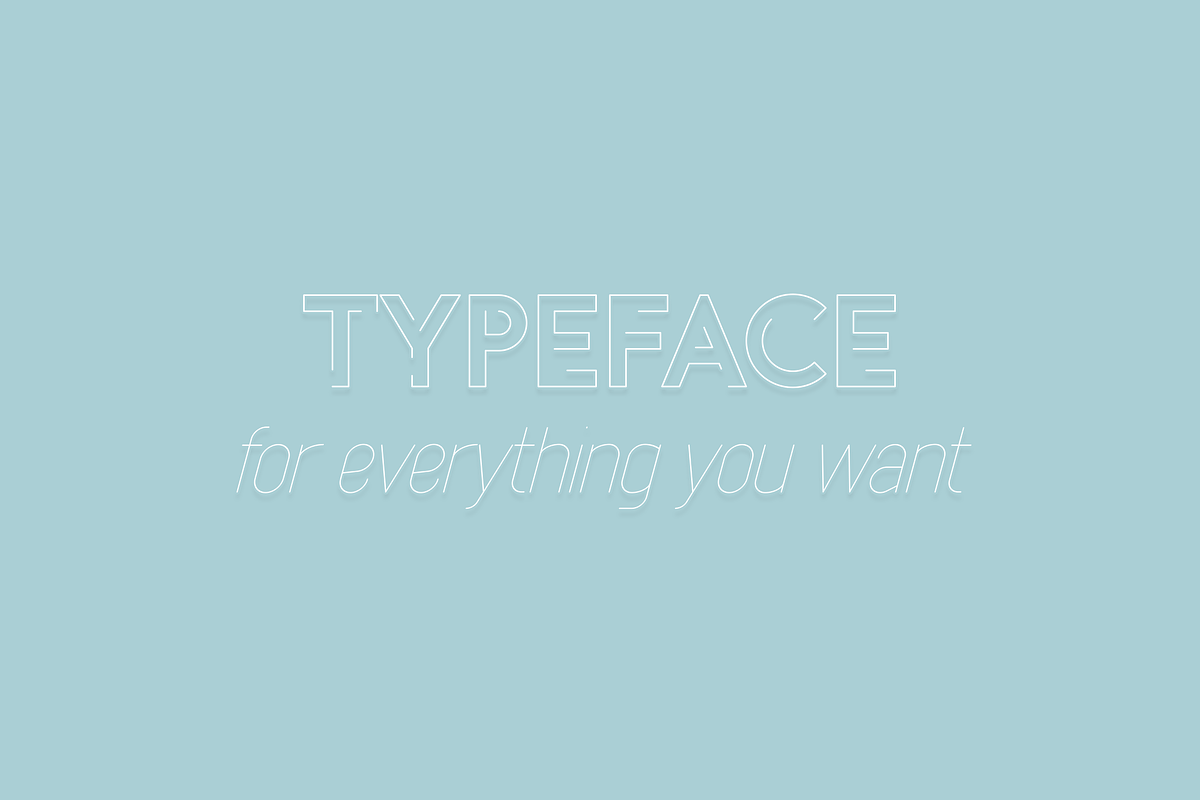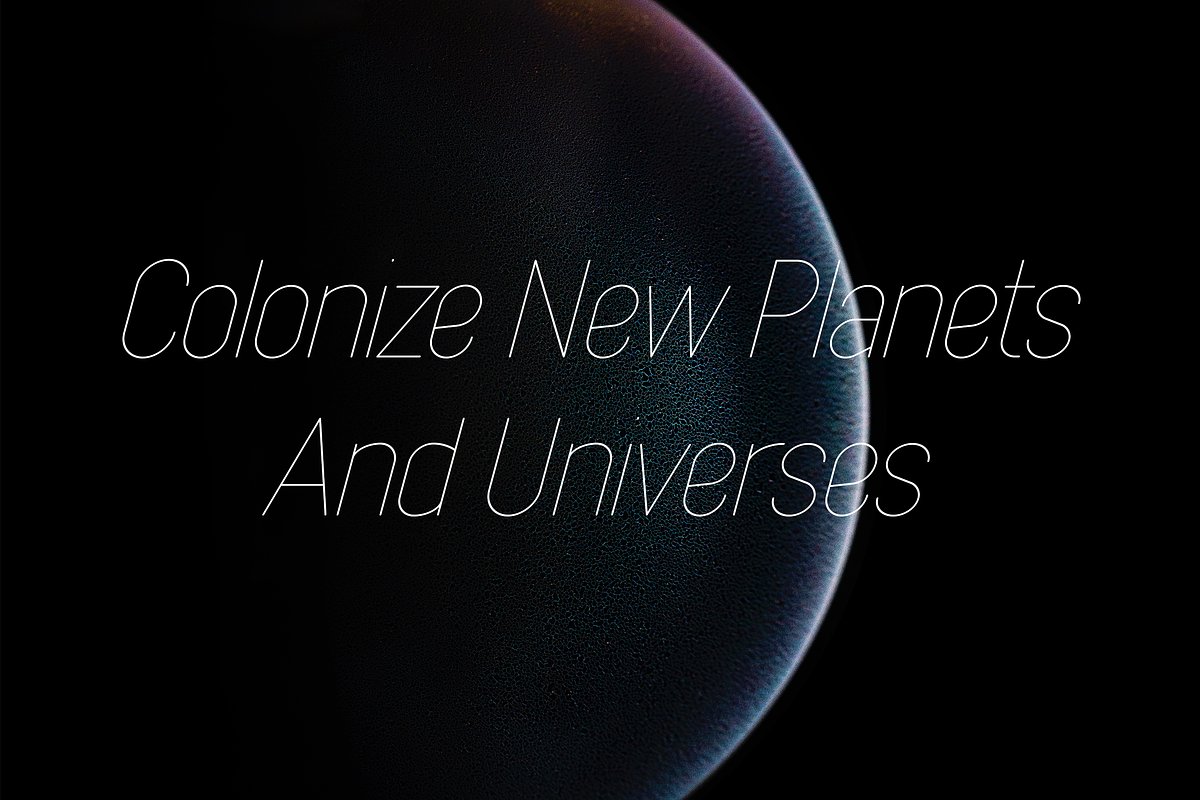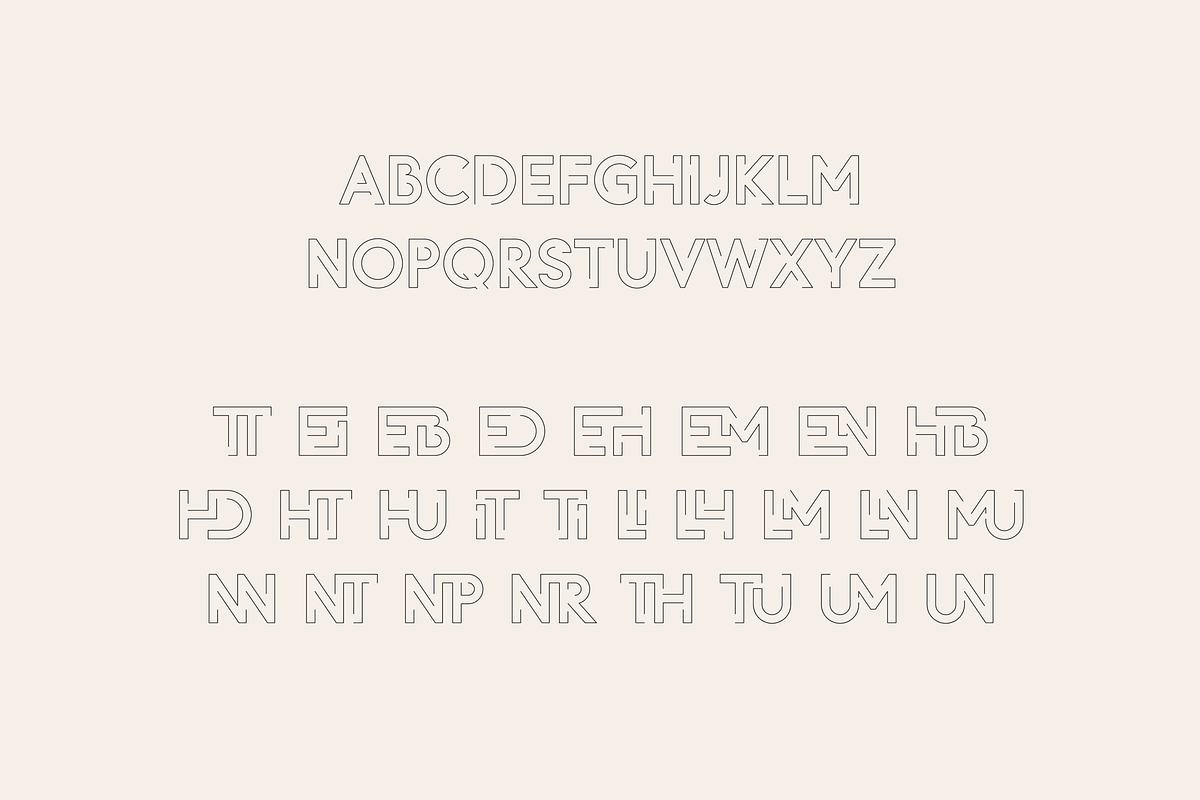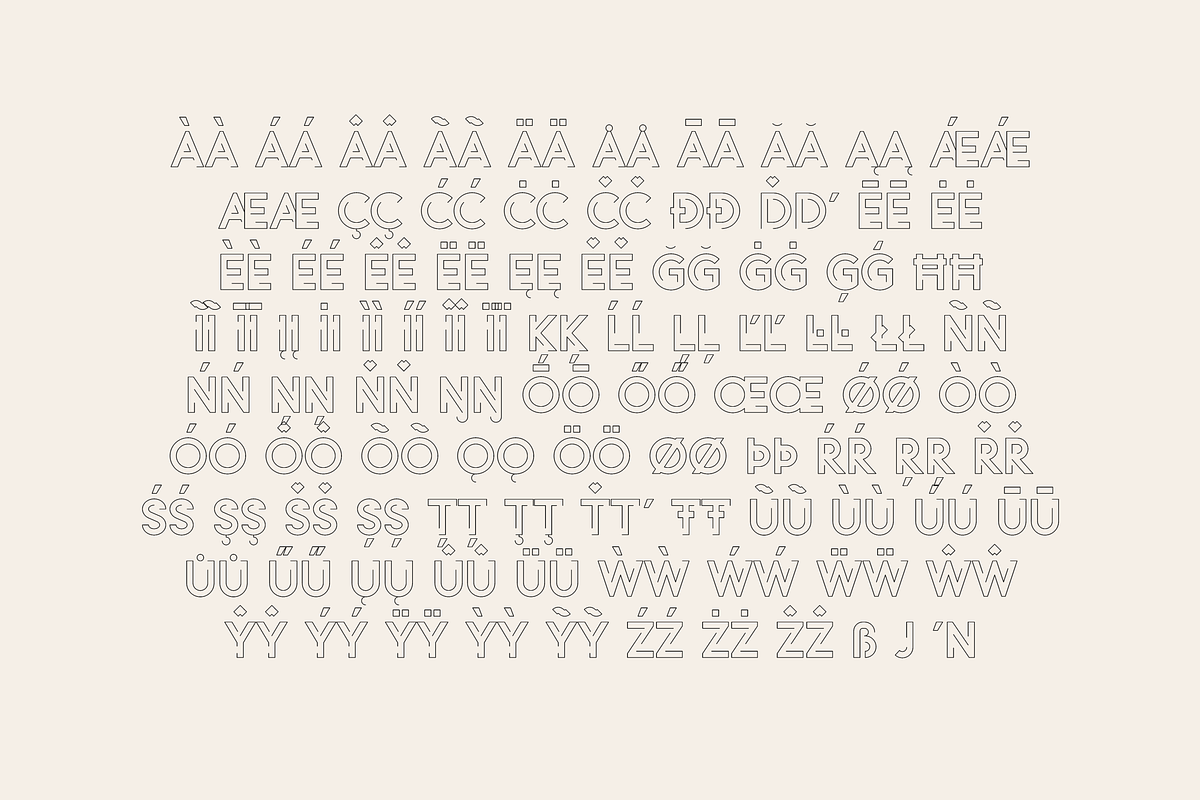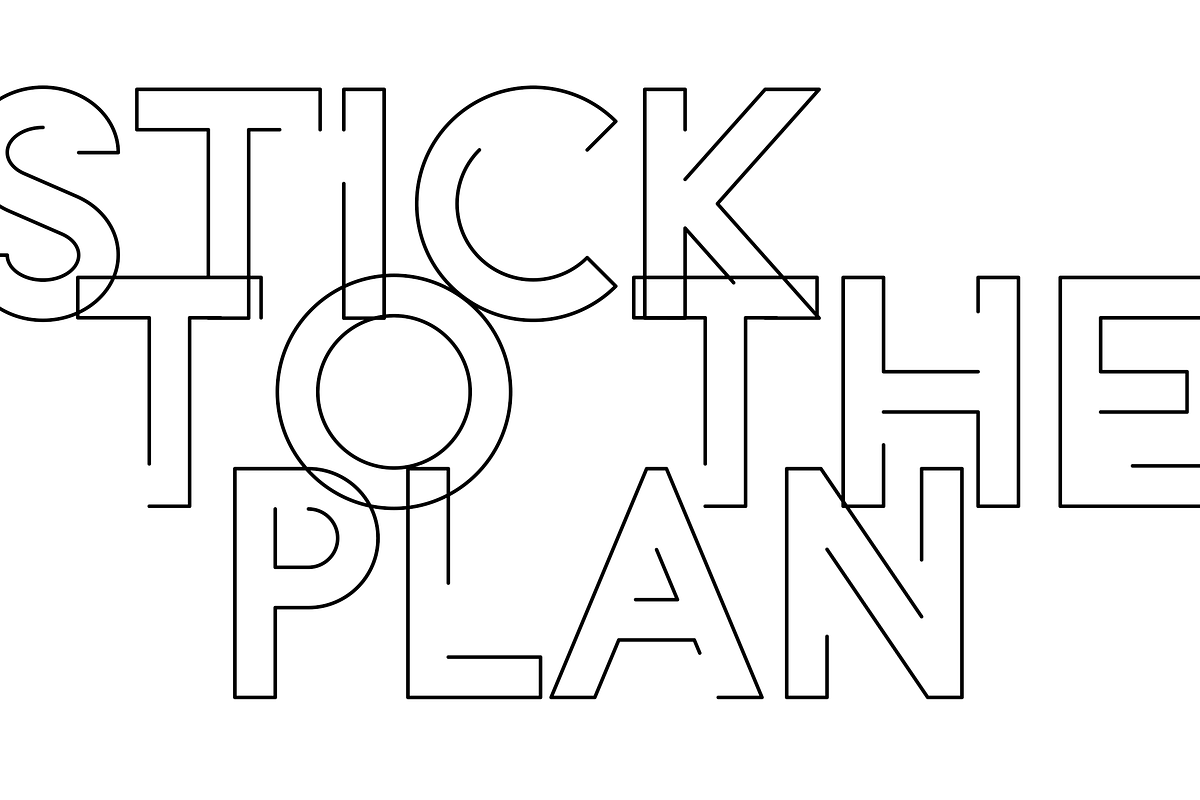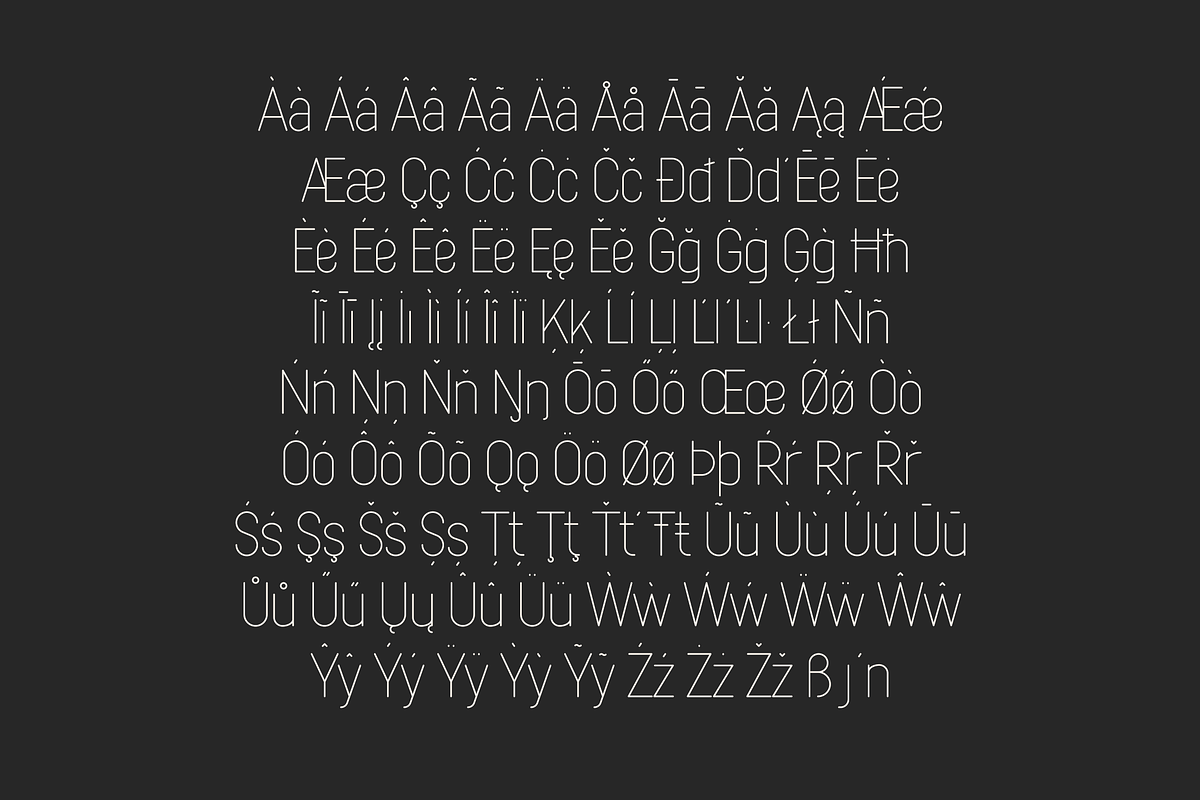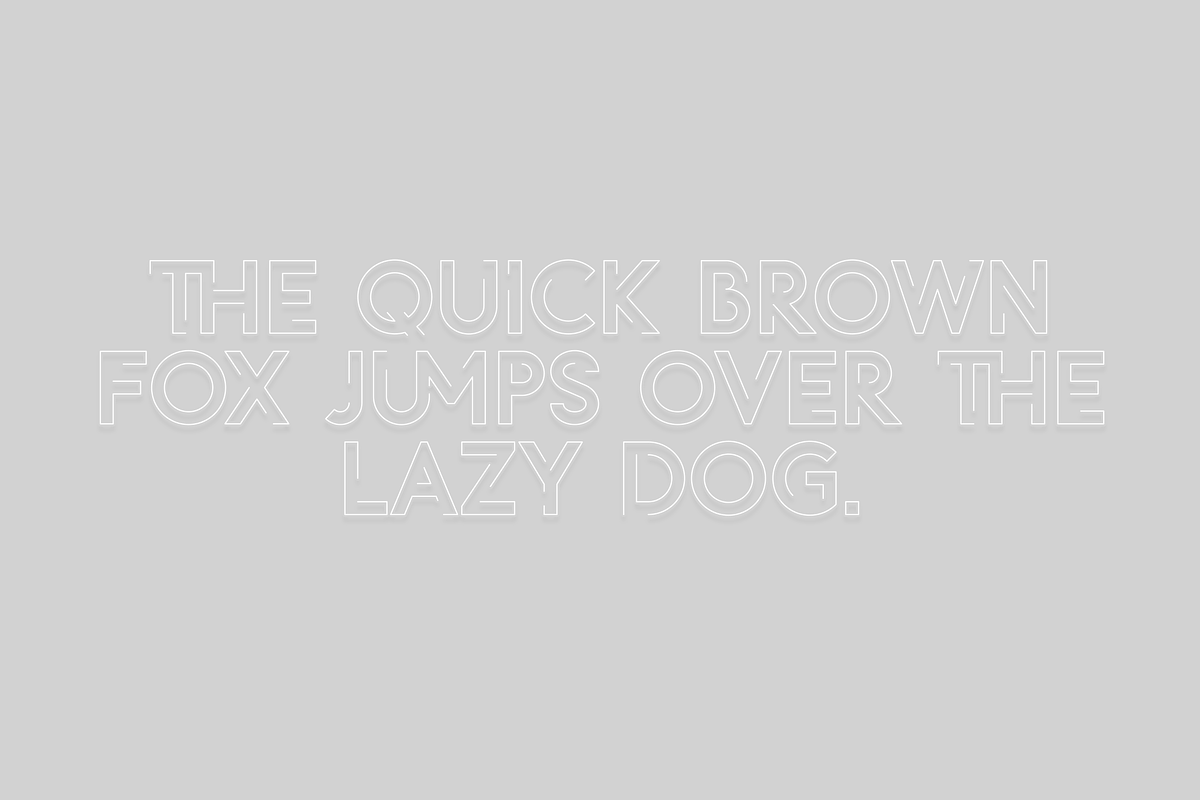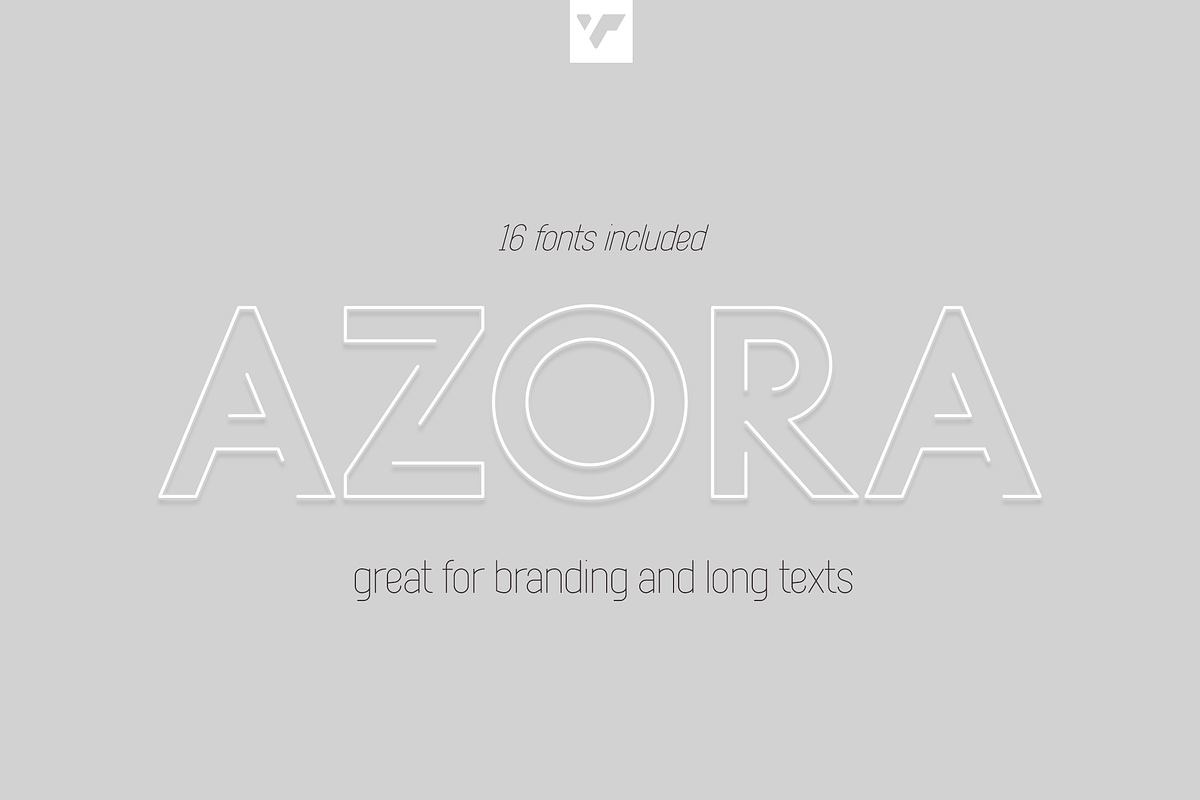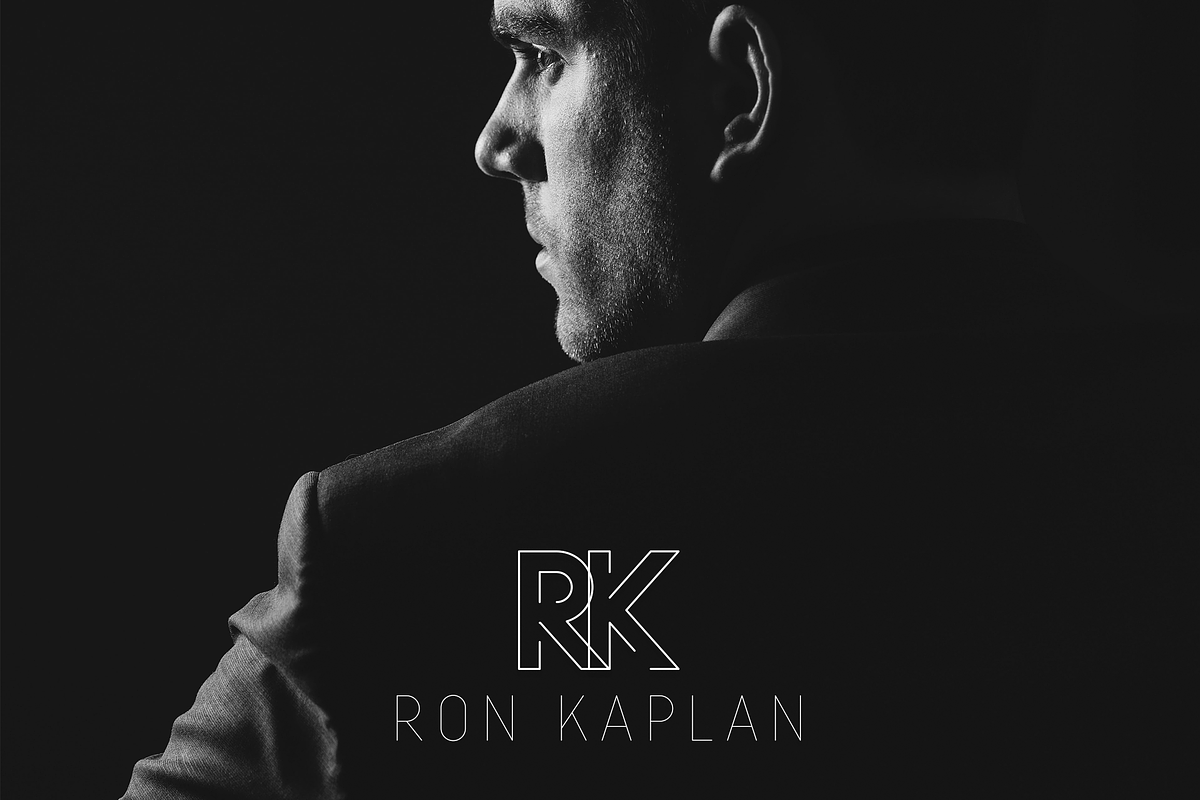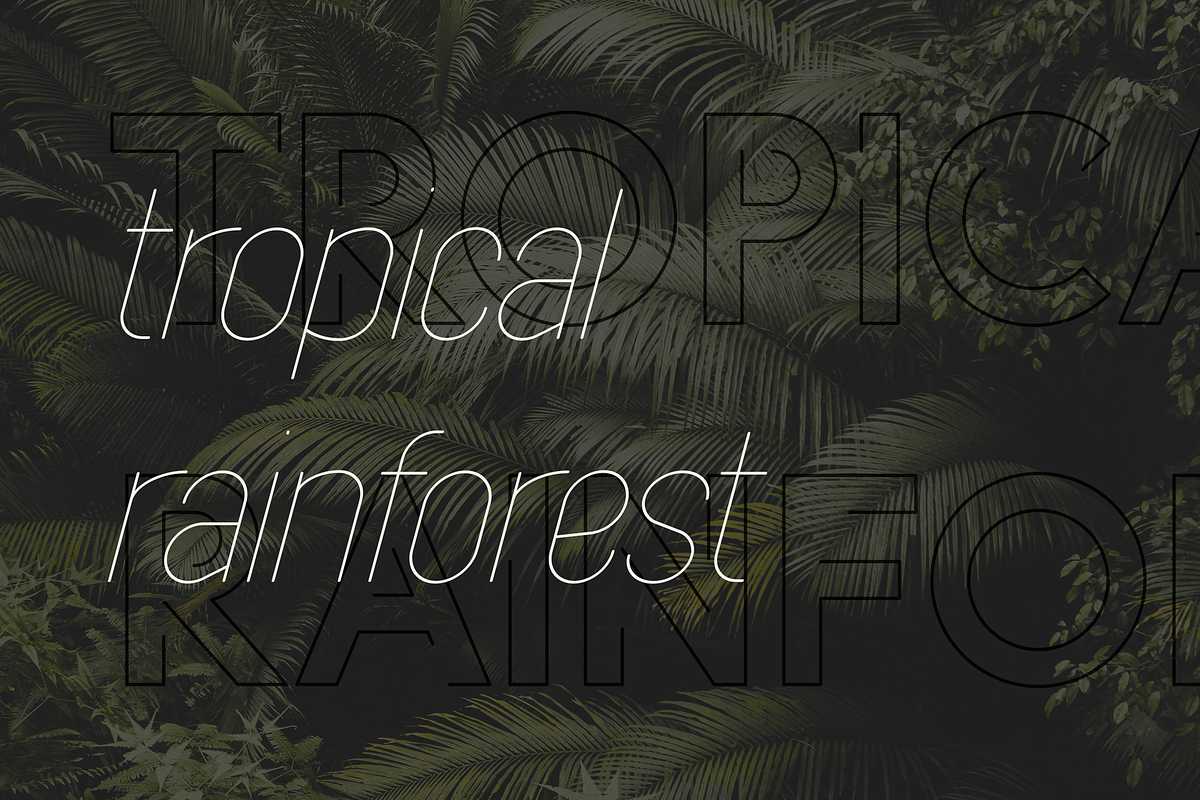
Azora typeface for branding and text
Introducing Azora typeface - 16 fonts
Elevate Your Typography with Azora - The Futuristic and Casual Typeface with 16 Fonts, 87 Language Support and Ligature Glyphs for Unique Designs.
Language Support : Afrikaans, Albanian, Asu, Basque, Bemba, Bena, Breton, Chiga, Colognian, Cornish, Czech, Danish, Dutch, Embu, English, Estonian, Faroese, Filipino, Finnish, French, Friulian, Galician, Ganda, German, Gusi,i Hungarian, Indonesian, Irish, Italian, Jola-Fonyi, Kabuverdianu, Kalenjin, Kamba, Kikuyu, Kinyarwanda, Latvian, Lithuanian, Lower Sorbian, Luo, Luxembourgish, Luyia, Machame, Makhuwa-Meetto, Makonde, Malagasy, Maltese, Manx, Meru, Morisyen, North Ndebele, Norwegian, Bokmål, Norwegian, Nynorsk, Nyankole, Oromo, Polish, Portuguese, Quechua, Romanian, Romansh, Rombo, Rundi, Rwa, Samburu, Sango, Sangu, Scottish, Gaelic, Sena, Shambala, Shona, Slovak, Soga, Somali, Spanish, Swahili, Swedish, Swiss, German, Taita, Teso, Turkish, Upper, Sorbian, Uzbek (Latin), Volapük, Vunjo, Walser, Welsh, Western Frisian, Zulu
- Uppercase, lowercase, numeral, punctuation & Symbol
- ligature glyphs
- Display font - regular and italic
- 7 sans serif weights - regular and italics